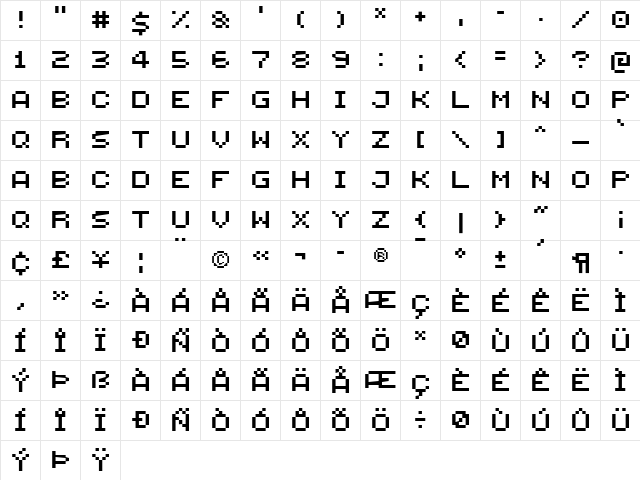
Complete Minecraft Five Regular glyph index. Displaying only characters natively supported by Minecraft Five Regular font.
Minecraft Five is a composed and adaptable typeface that performs quietly and consistently across a wide range of design contexts.